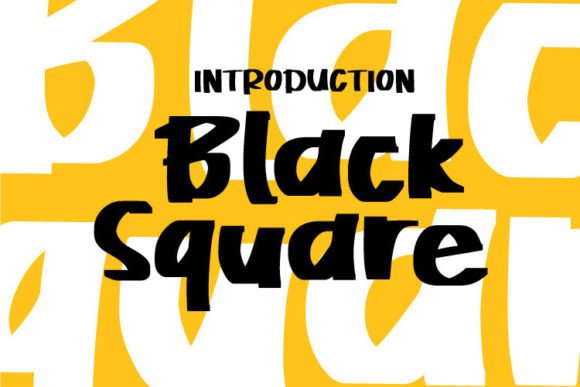
Unleash Your Creativity with Blacksquare Font
Are you tired of using the same old fonts for your creative projects? Look no further than Blacksquare Font, a bold and incredibly unique display font that’s sure to make your designs stand out. With its eclectic and abstract shapes, Blacksquare Font is the perfect addition to any creative idea.
What is Blacksquare Font?
Blacksquare Font is a display font that celebrates abstract shapes in all their brilliance. Its unique and bold design makes it perfect for headlines, titles, and other creative projects where you want to make a statement. The font’s abstract shapes and geometric patterns give it a distinctive look that’s sure to grab attention.
Features of Blacksquare Font
- Bold and Unique Design: Blacksquare Font has a bold and unique design that’s sure to make your creative projects stand out.
- Abstract Shapes: The font features abstract shapes and geometric patterns that give it a distinctive look.
- Eclectic Brilliance: Blacksquare Font celebrates eclectic brilliance, making it perfect for designers and crafters who want to add a touch of personality to their work.
- Display Font: Blacksquare Font is a display font, making it perfect for headlines, titles, and other creative projects where you want to make a statement.
Why Use Blacksquare Font?
There are many reasons why you should consider using Blacksquare Font for your creative projects. Here are just a few:
- Add a Touch of Personality: Blacksquare Font adds a touch of personality to your designs, making them more engaging and interesting.
- Stand Out from the Crowd: With its unique and bold design, Blacksquare Font is sure to make your designs stand out from the crowd.
- Perfect for Creative Projects: Blacksquare Font is perfect for creative projects such as posters, flyers, brochures, and more.
Tips for Using Blacksquare Font
Here are some tips for using Blacksquare Font:
- Use it Sparingly: Use Blacksquare Font sparingly to make a big impact. It’s perfect for headlines and titles, but may not be suitable for body text.
- Experiment with Colors: Experiment with different colors to find the one that works best with Blacksquare Font.
- Pair it with Other Fonts: Pair Blacksquare Font with other fonts to create a unique and interesting design.
Blacksquare Font is a bold and incredibly unique display font that’s perfect for designers and crafters who want to add a touch of personality to their work. With its abstract shapes and geometric patterns, Blacksquare Font is sure to make your creative projects stand out. So why not give it a try and see the difference it can make?